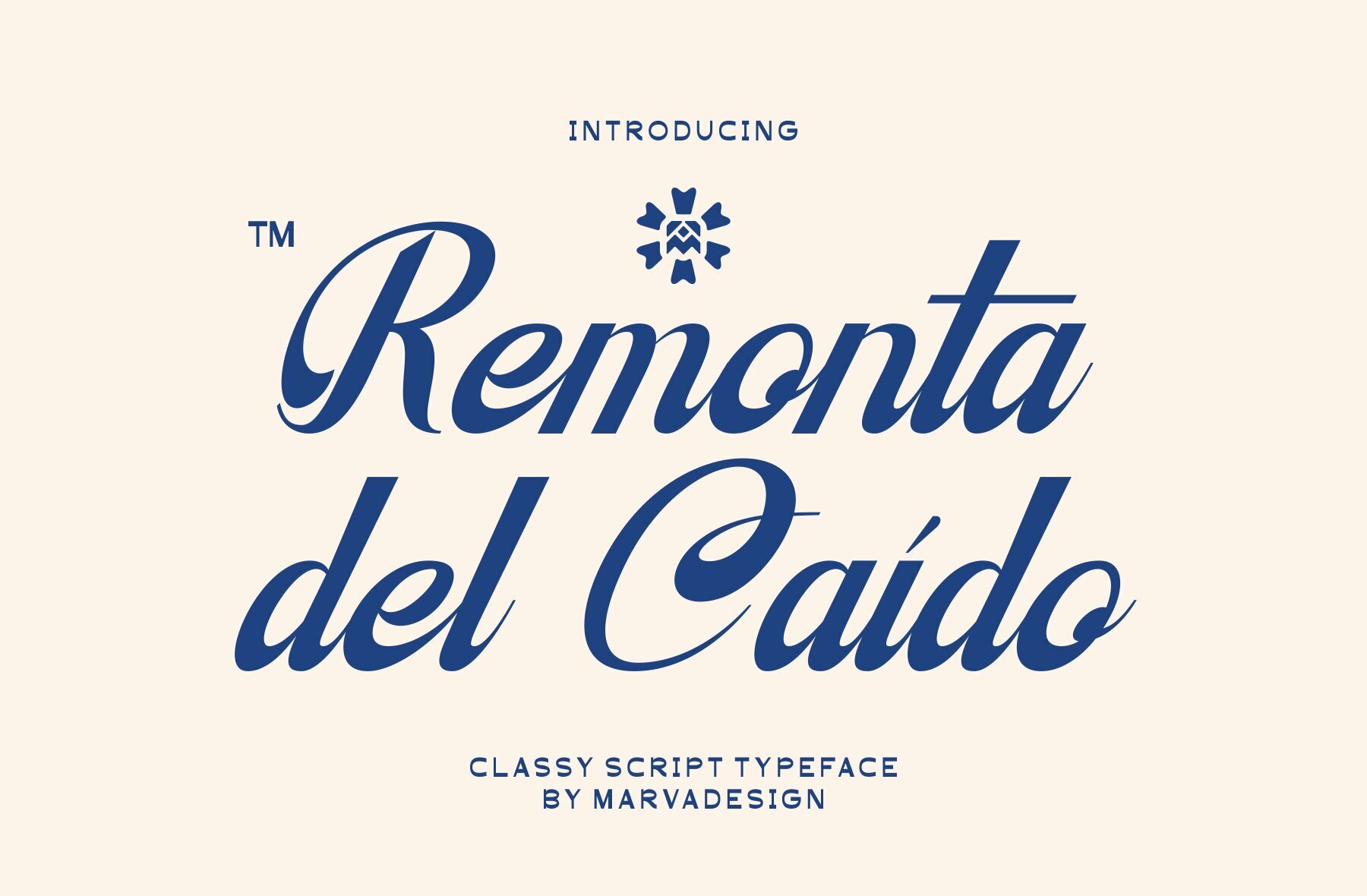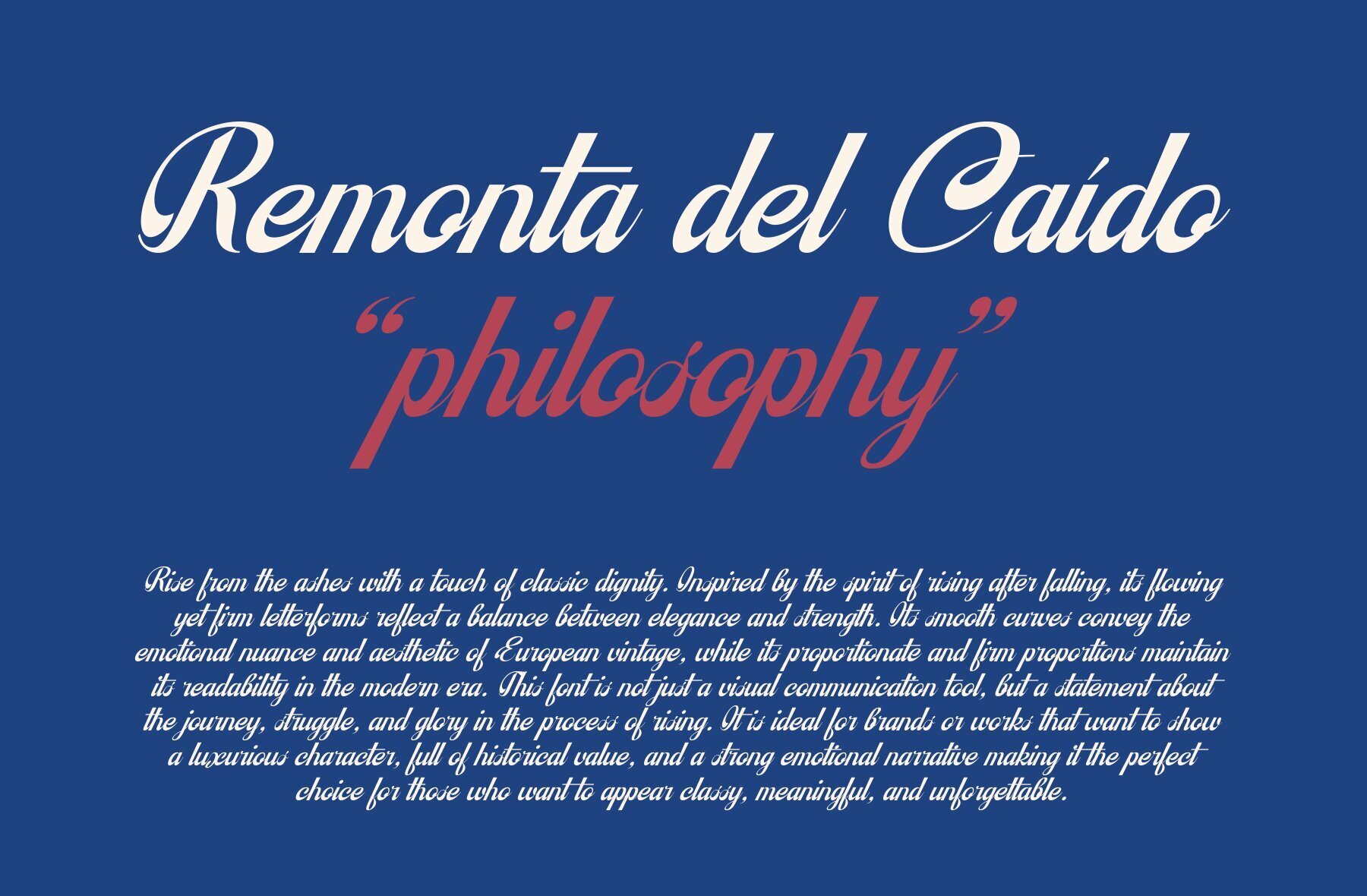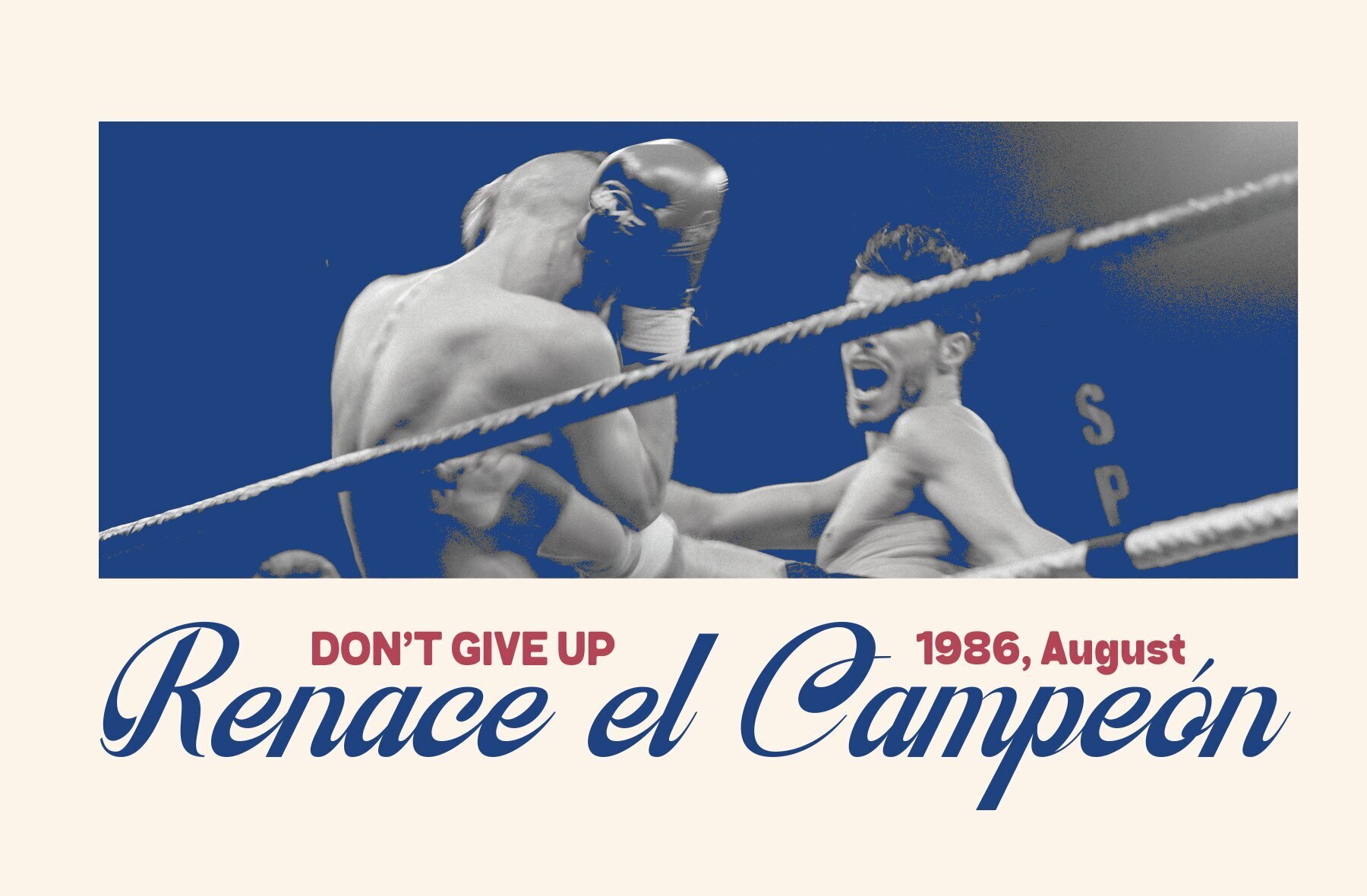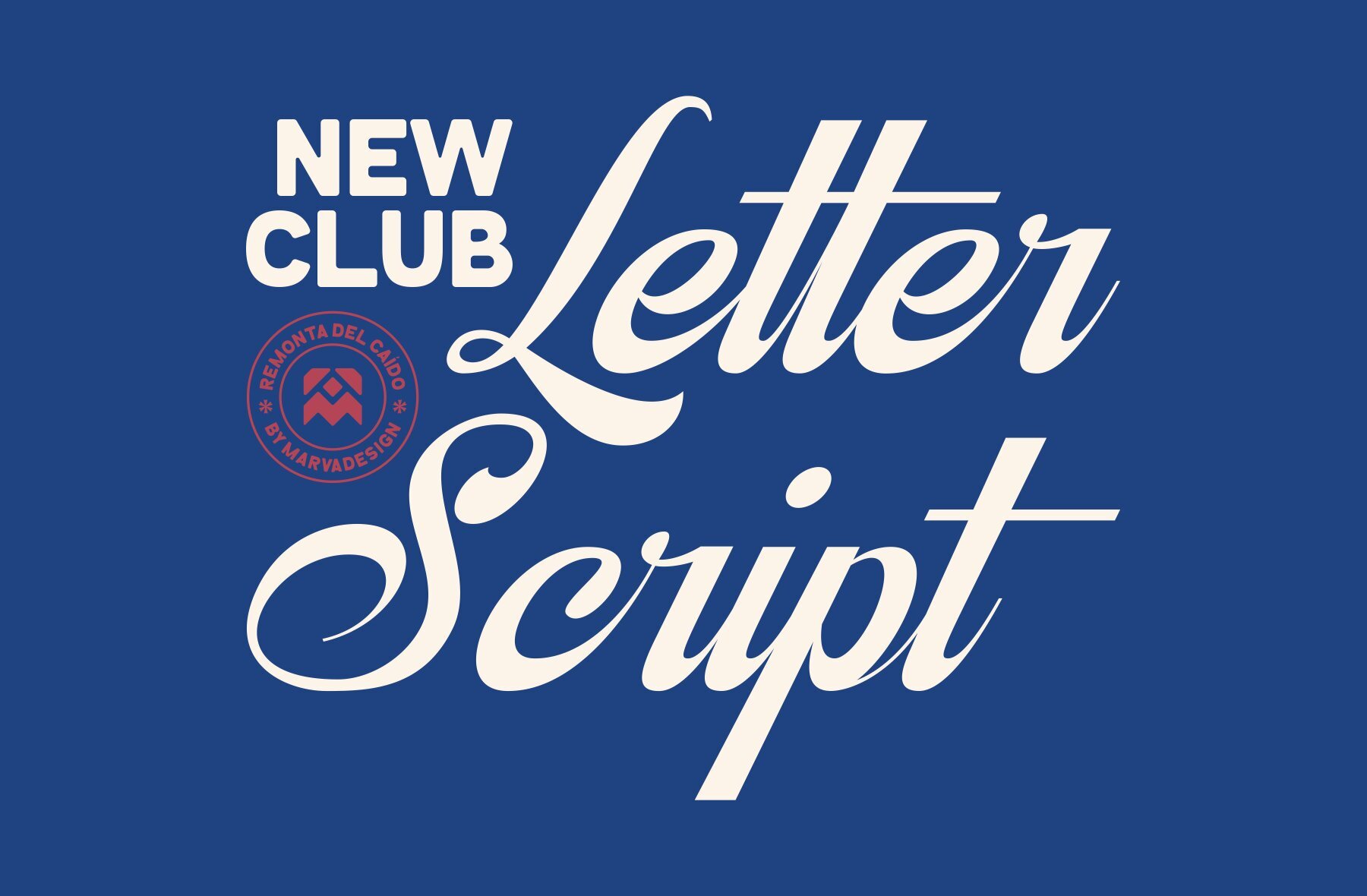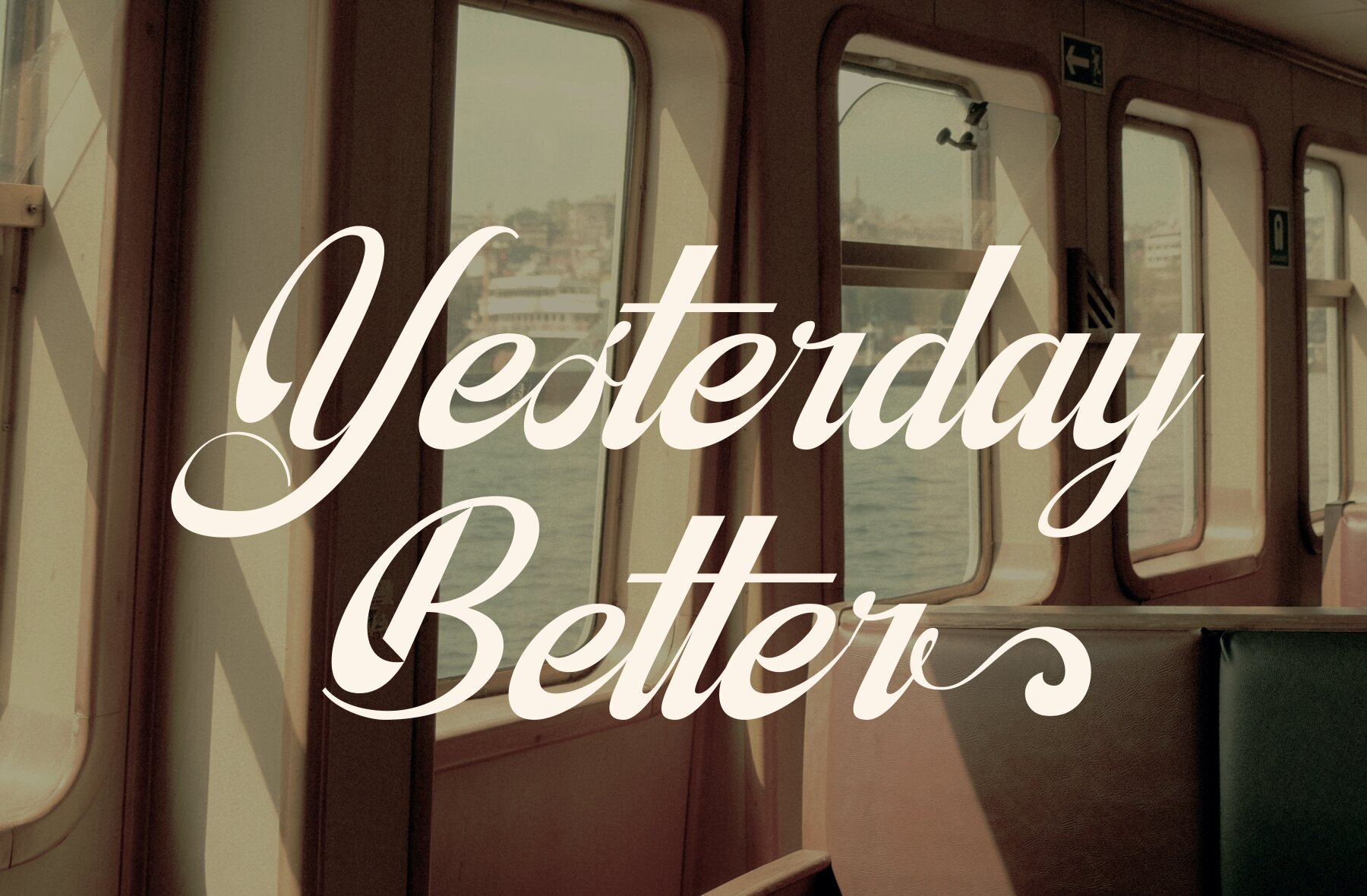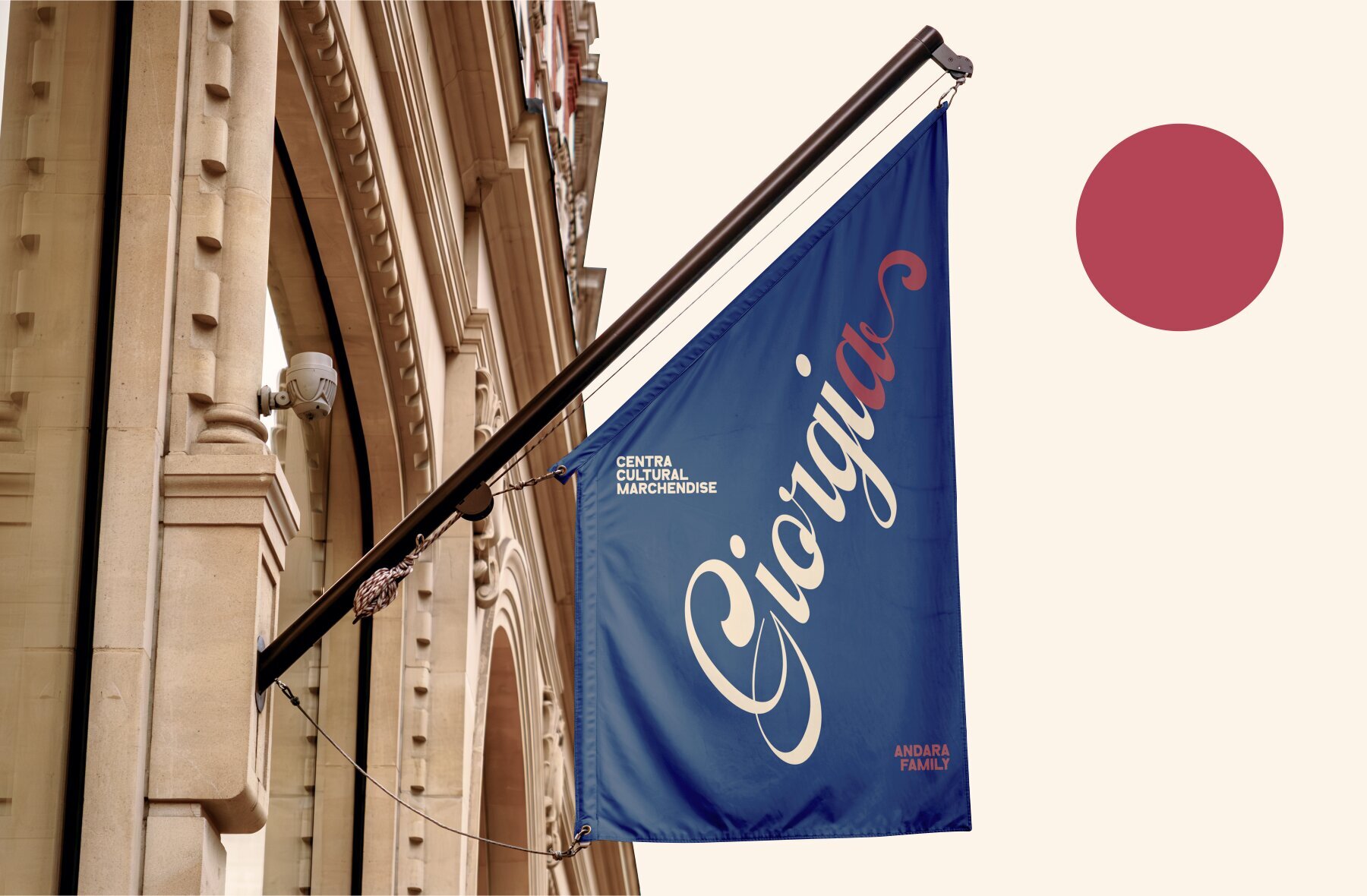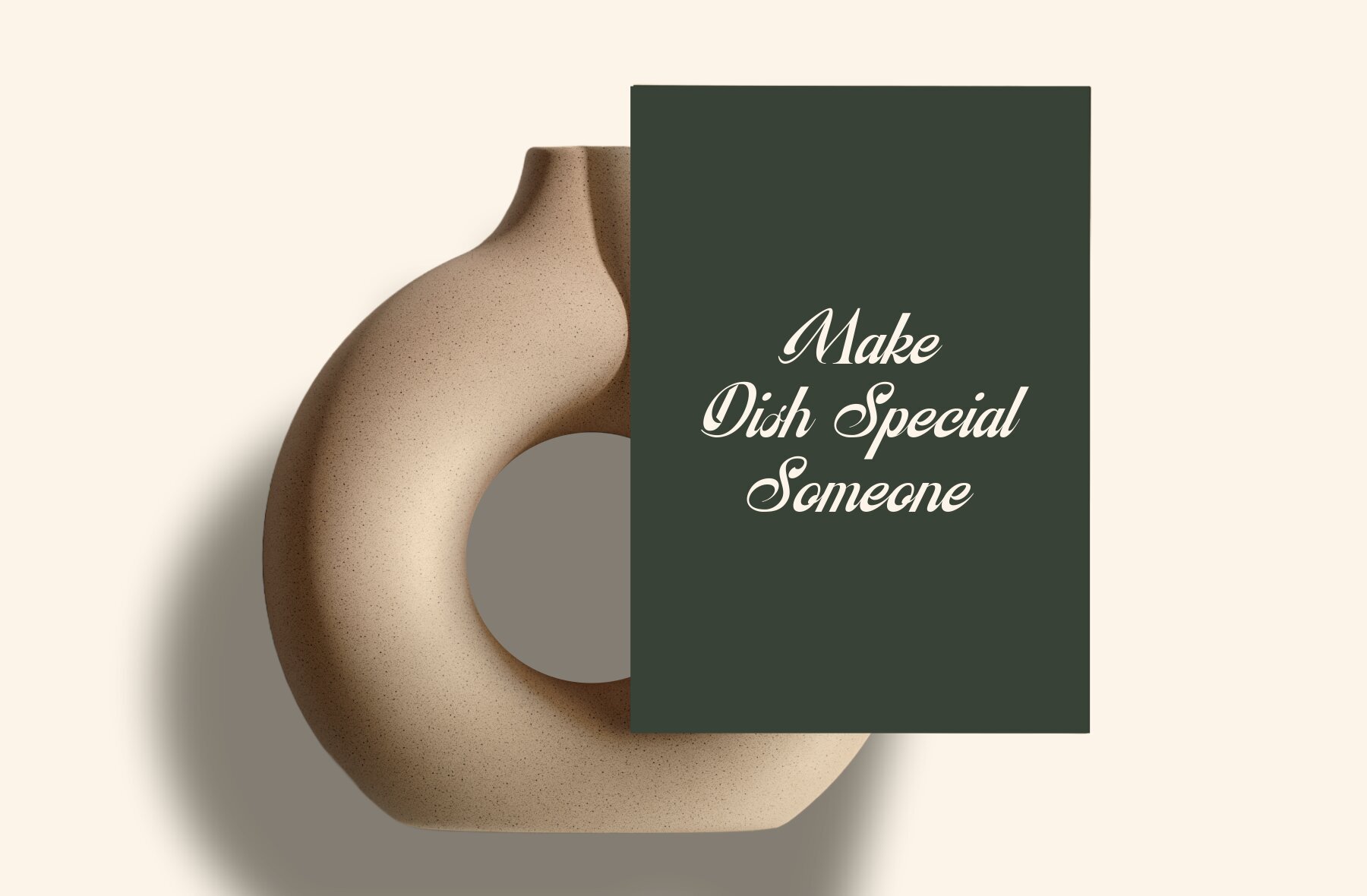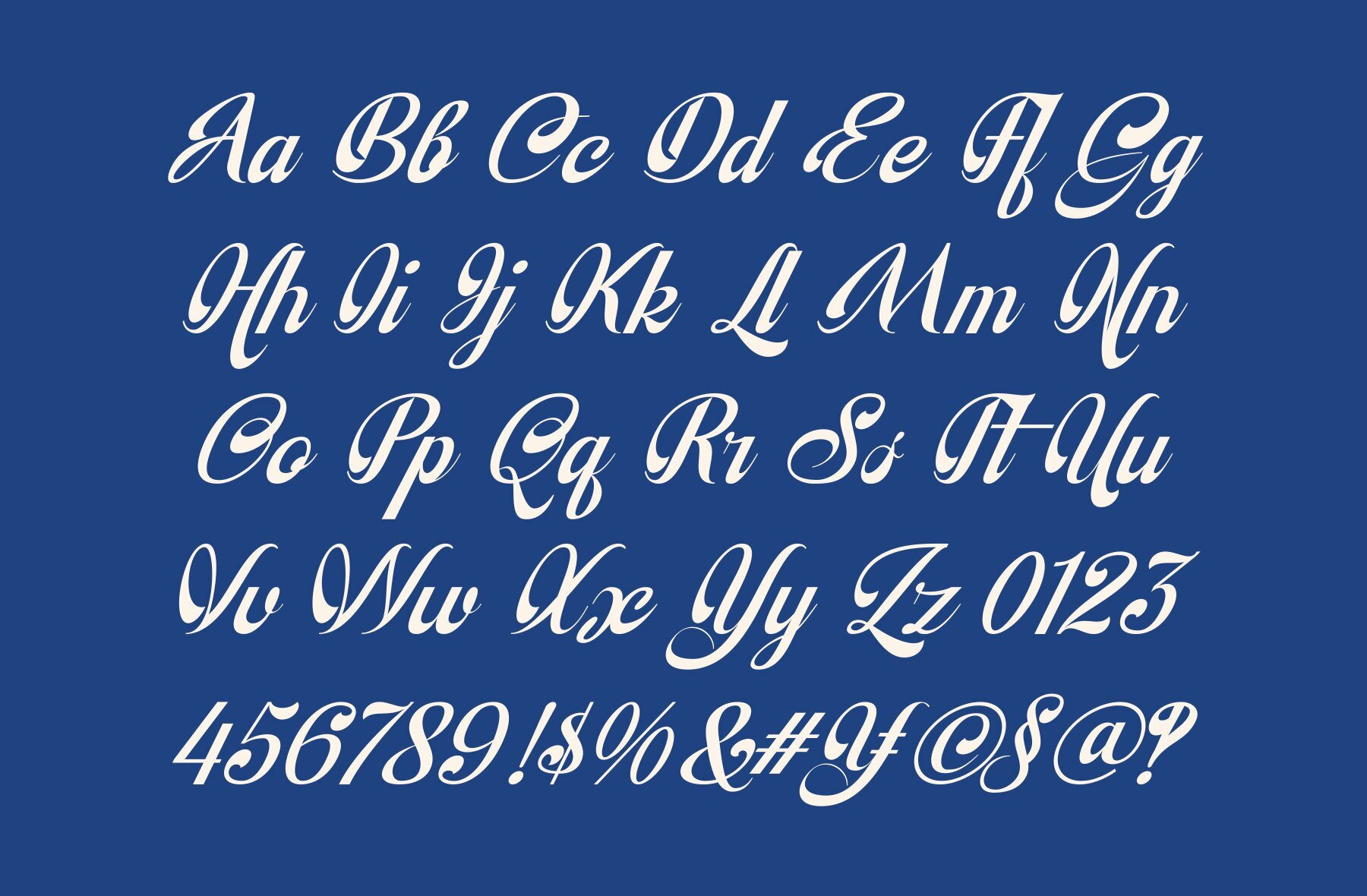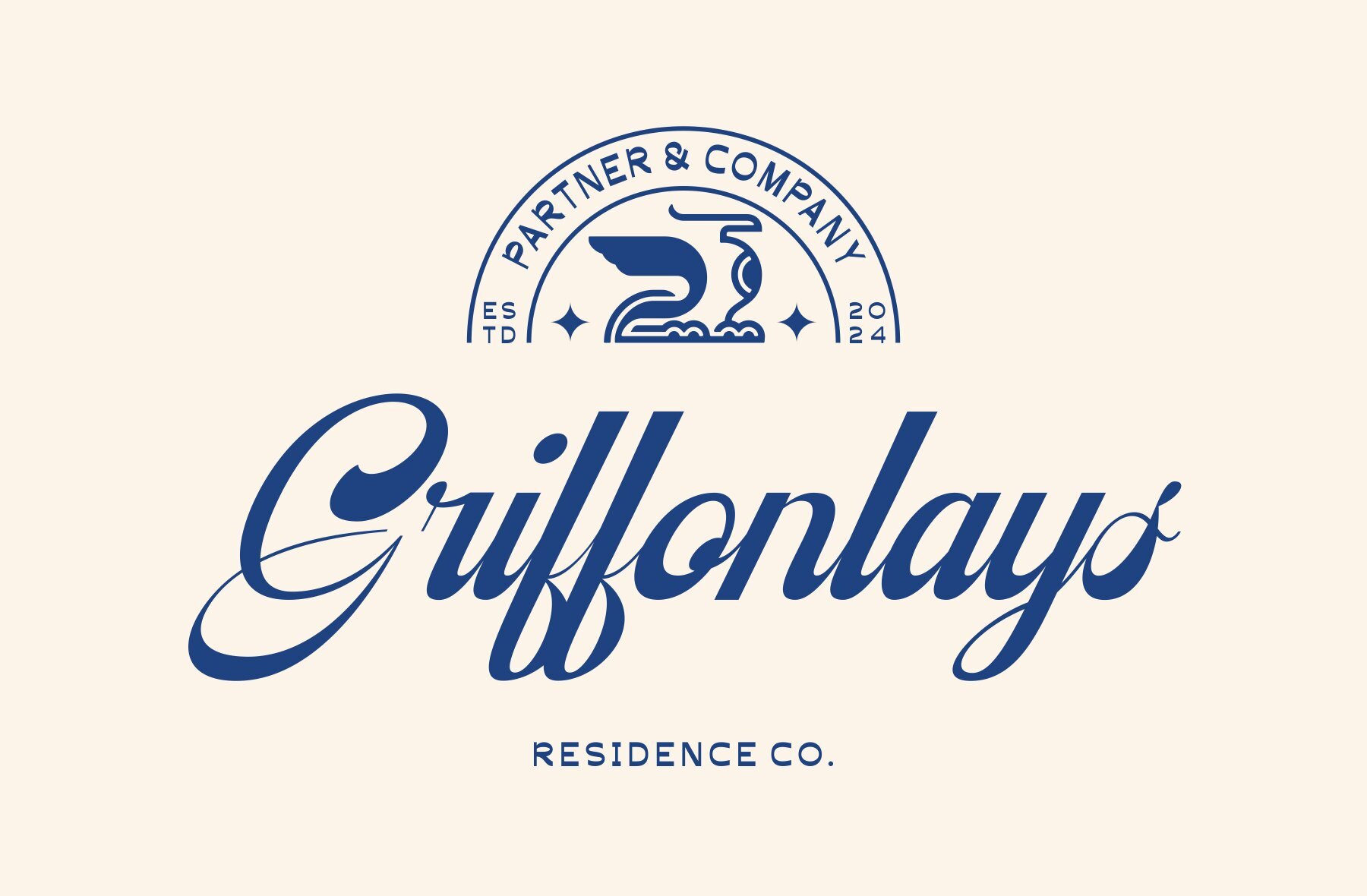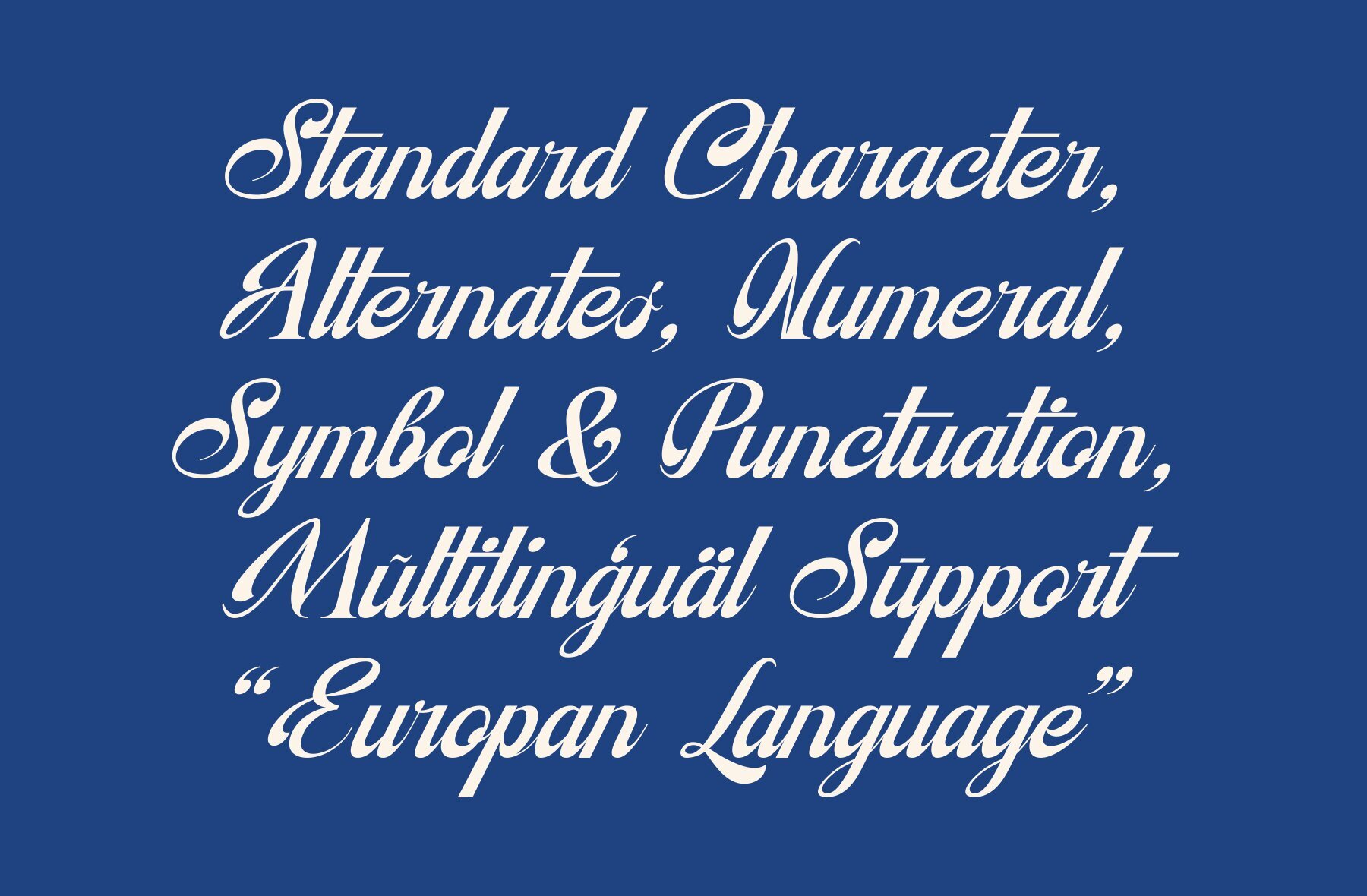
Remonta de Caido Font
Remonta Del Caido
Remonta del Caído offers a sophisticated blend of classical elegance and bold expression. Its fluid yet structured letterforms echo the grace of European vintage aesthetics, ensuring high legibility in modern design contexts. Designed to embody resilience and dignity, this typeface rises above with its timeless curves and signature personality.Remonta del Caído: A Script Typeface with Classical Elegance